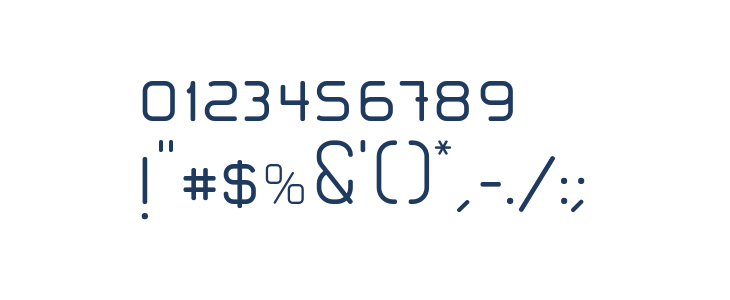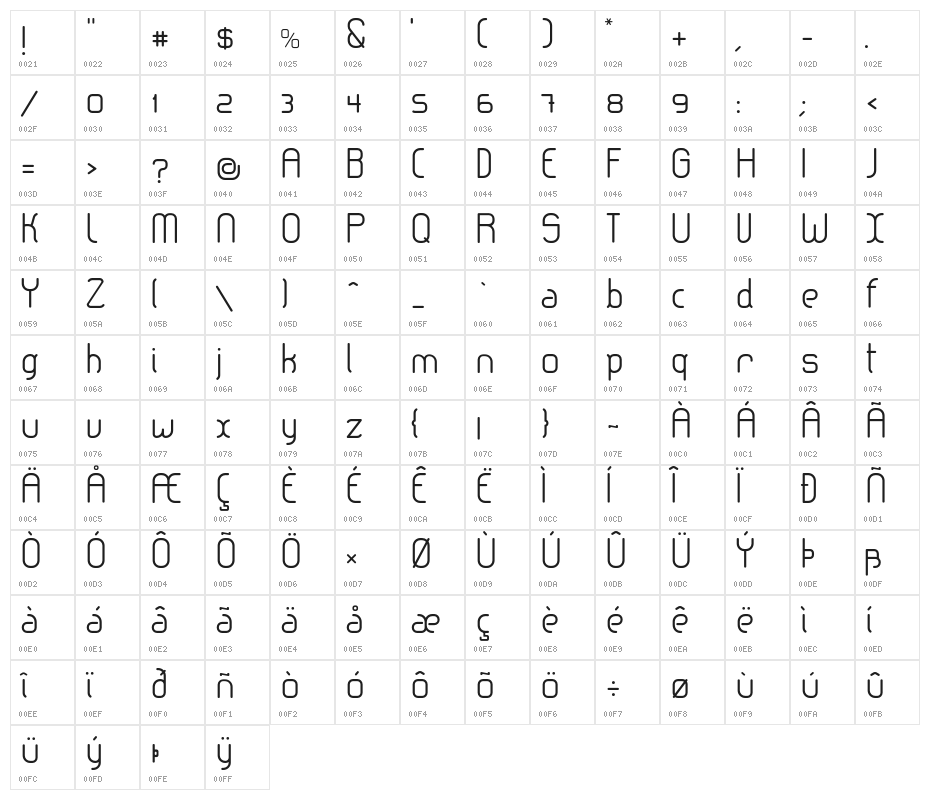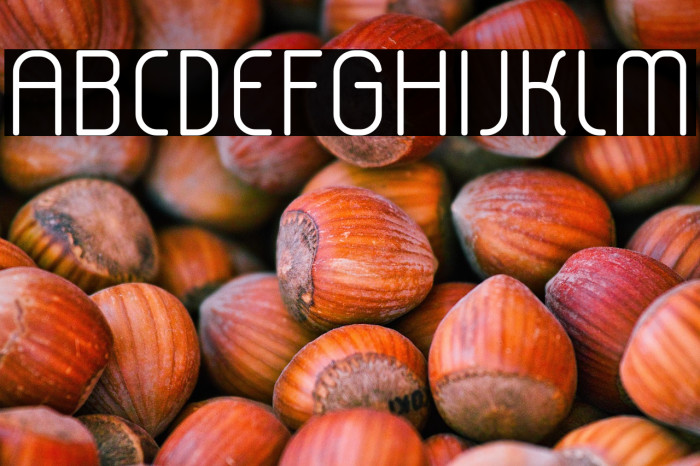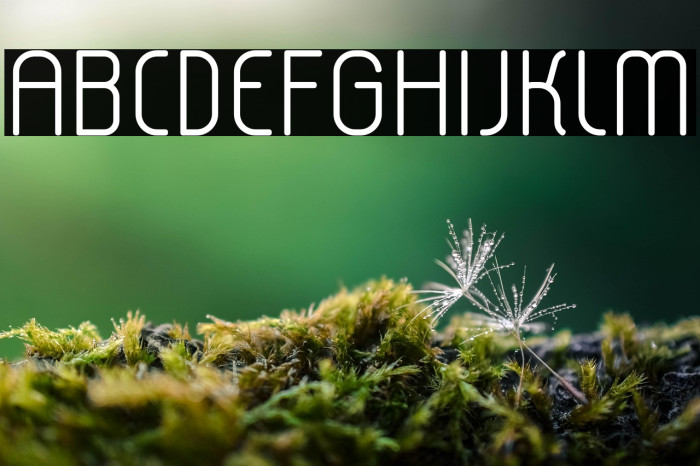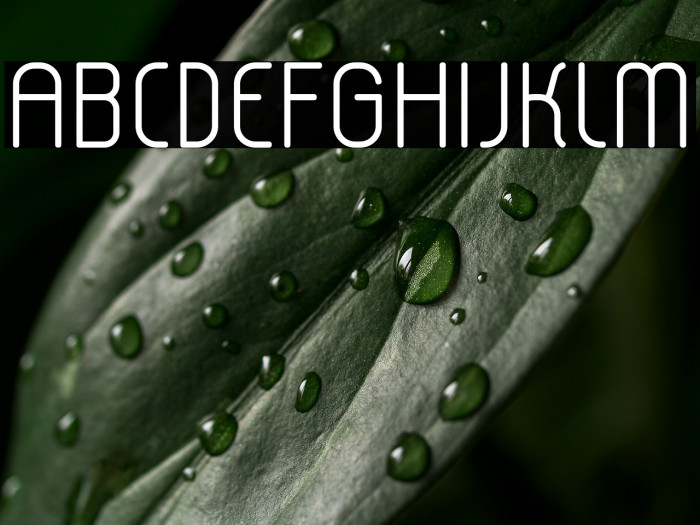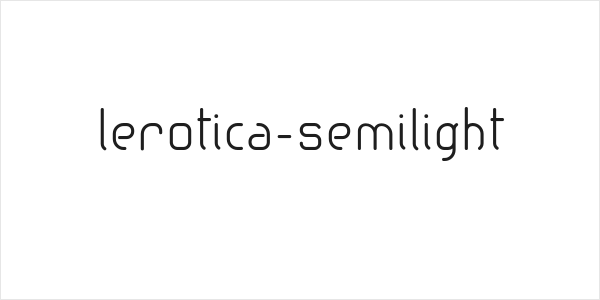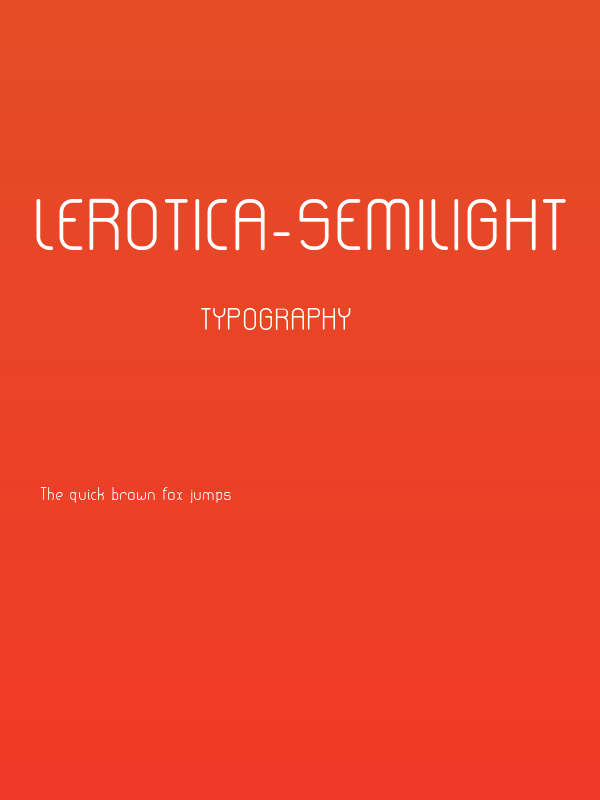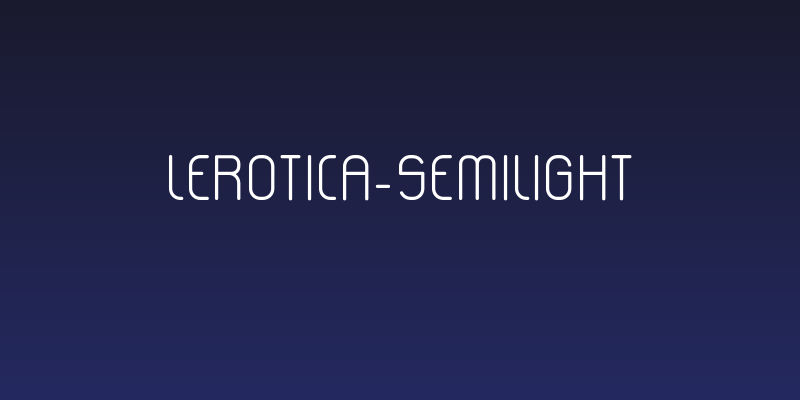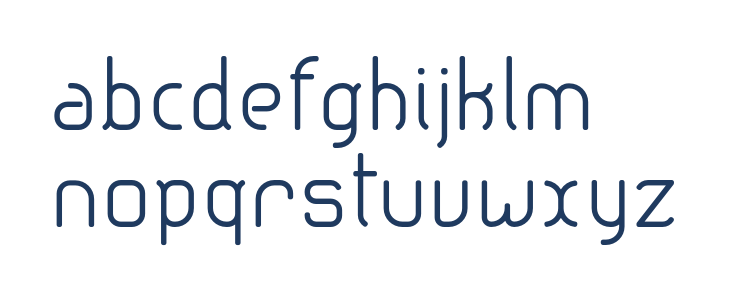
lerotica-semilight Font
lerotica-semilight Description
This font features a modern, geometric design with rounded edges and a clean, streamlined appearance. The characters are evenly spaced, providing a harmonious and balanced look. The uppercase and lowercase letters maintain a consistent style, with smooth curves and a uniform stroke width that gives it a sleek and contemporary feel. The numerals and special characters complement the alphabetic characters, maintaining the same geometric and rounded aesthetic. This font is versatile, suitable for a variety of design projects that require a modern and approachable look.
Proposed ProjectsIdeal for branding, digital interfaces, advertising, and packaging design.